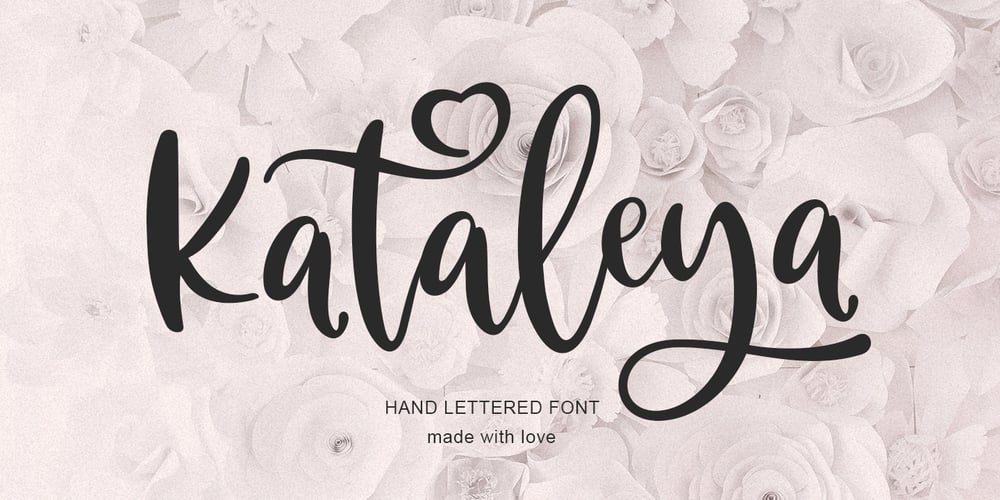
Kataleya
Kataleya font
Kataleya Font Family was designed by Pavel Larin and published by Larin Type Co. Kataleya contains 1 styles and family package options. Kataleya – this is a beautiful handwritten font filled with charm and romance. It will fit perfectly into any project, and thanks to alternative substitutes, you can make your design unique, try playing substitutes, and you will get different options for your design. All characters in this font support PUA encoding.